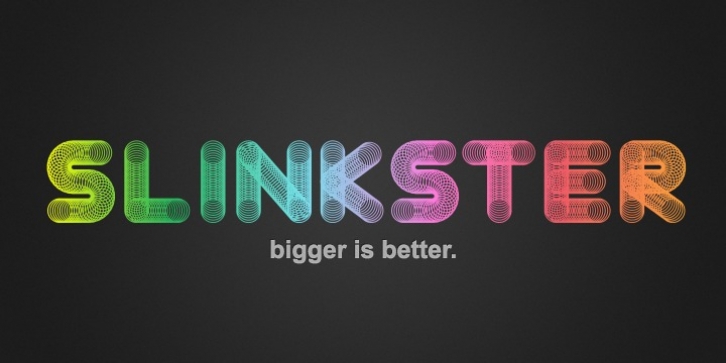
Big. Bold. Beautiful. Slinkster is an intricately unique display face created by carefully overlapping equally-sized circles. The geometric patterns formed become increasingly mesmerizing the larger the type is set.
Slinkster works best for display, headers, logotypes, and any other large-scale applications that allow the viewer to become hypnotized by its complexity.